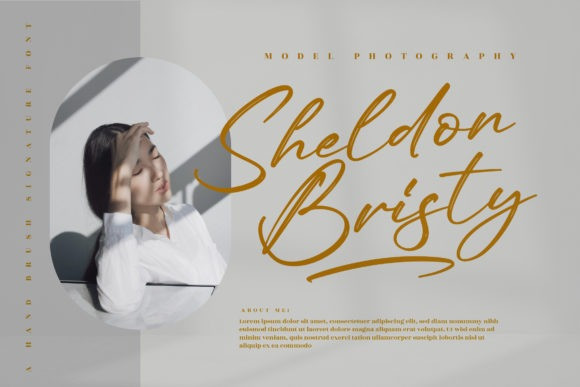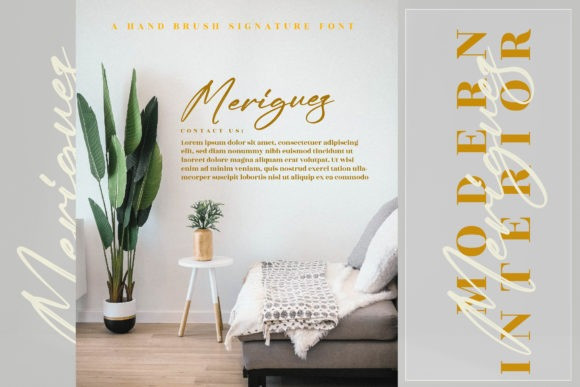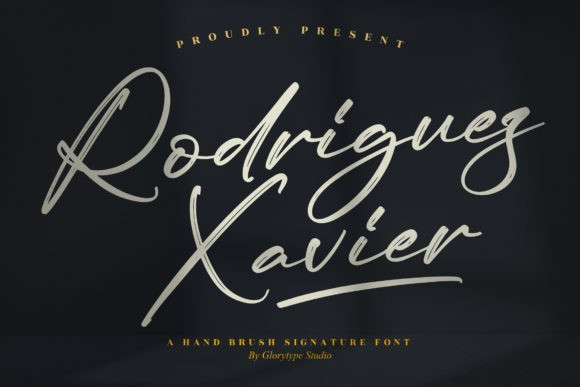
Rodriguez Xavier Font
Rodriguez Xavier Font, this elegant font is designed to fit a wide range of projects from urban designs to sophisticated branding. RodriguezXavier captures the hand-written essence of traditional wall letterings.